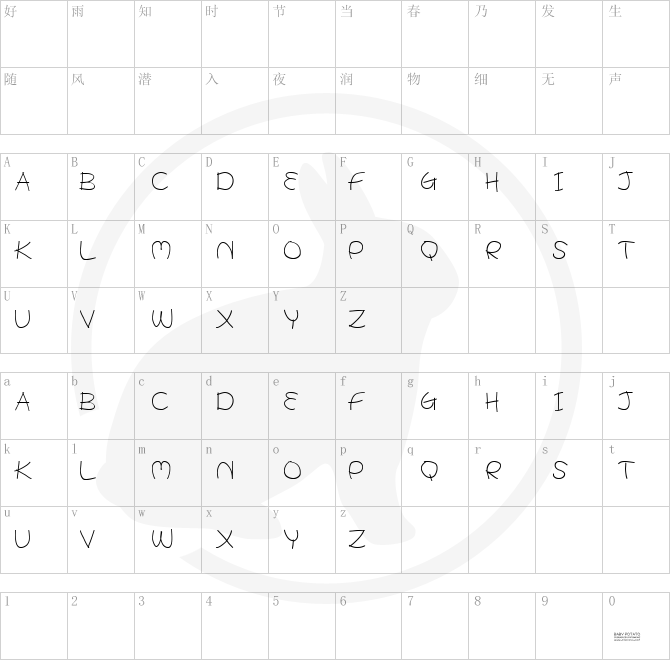
- Font Name:BABY POTATO
BABY-POTATO.ttf is a very beautiful artistic font, BABY-POTATO.ttf is widely used in the design and printing of various books and pictures,BABY-POTATO.ttf has a strong visual impact,BABY-POTATO.ttf is a commonly used font in newspapers, magazines and books, and is used in posters, e-commerce Poster design, store design, logo design, font design and other fields.BABY-POTATO.